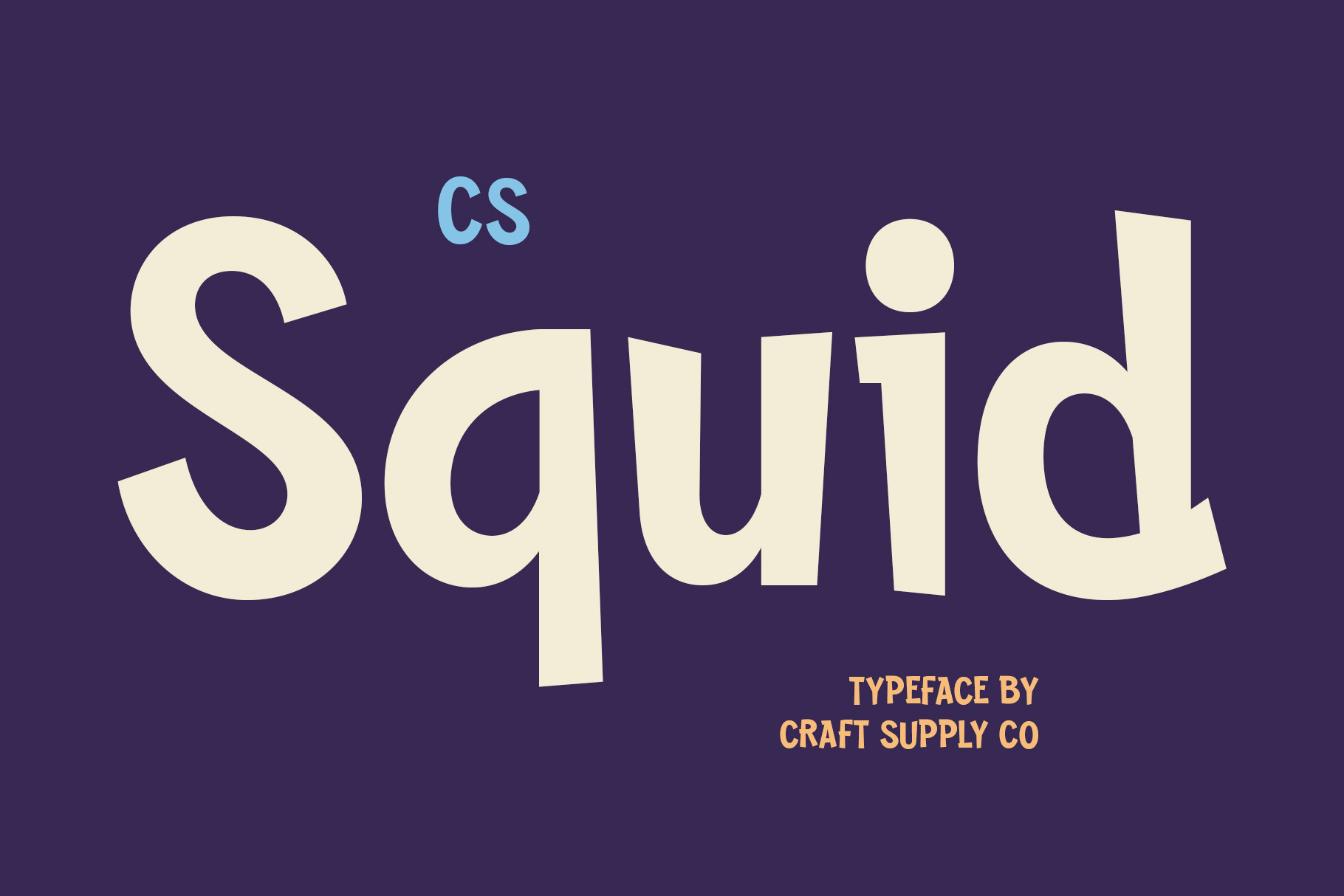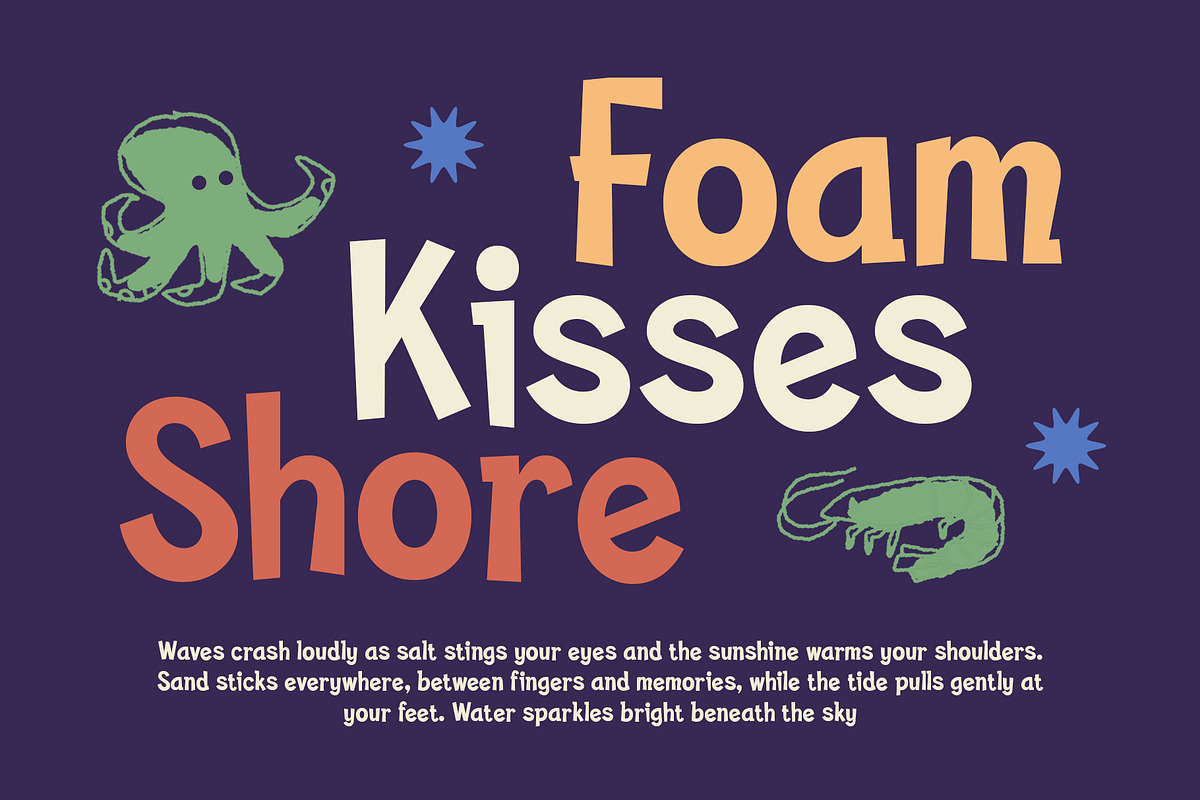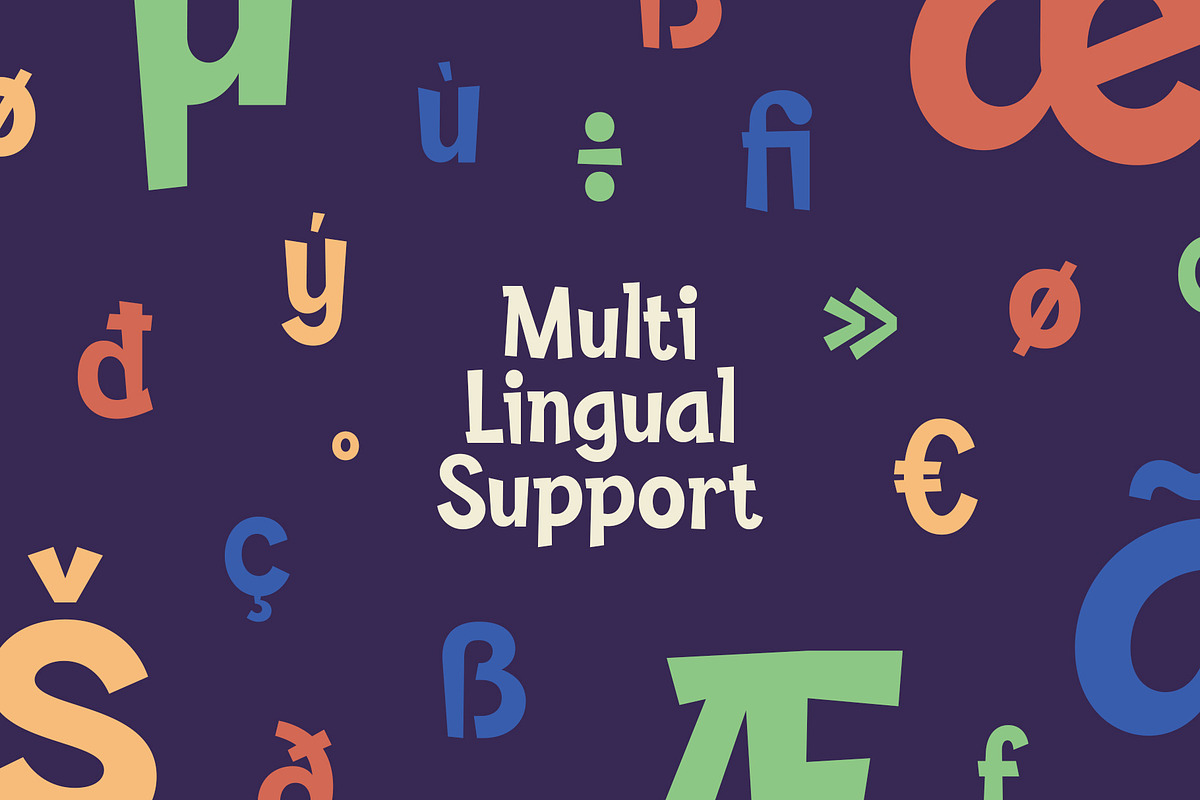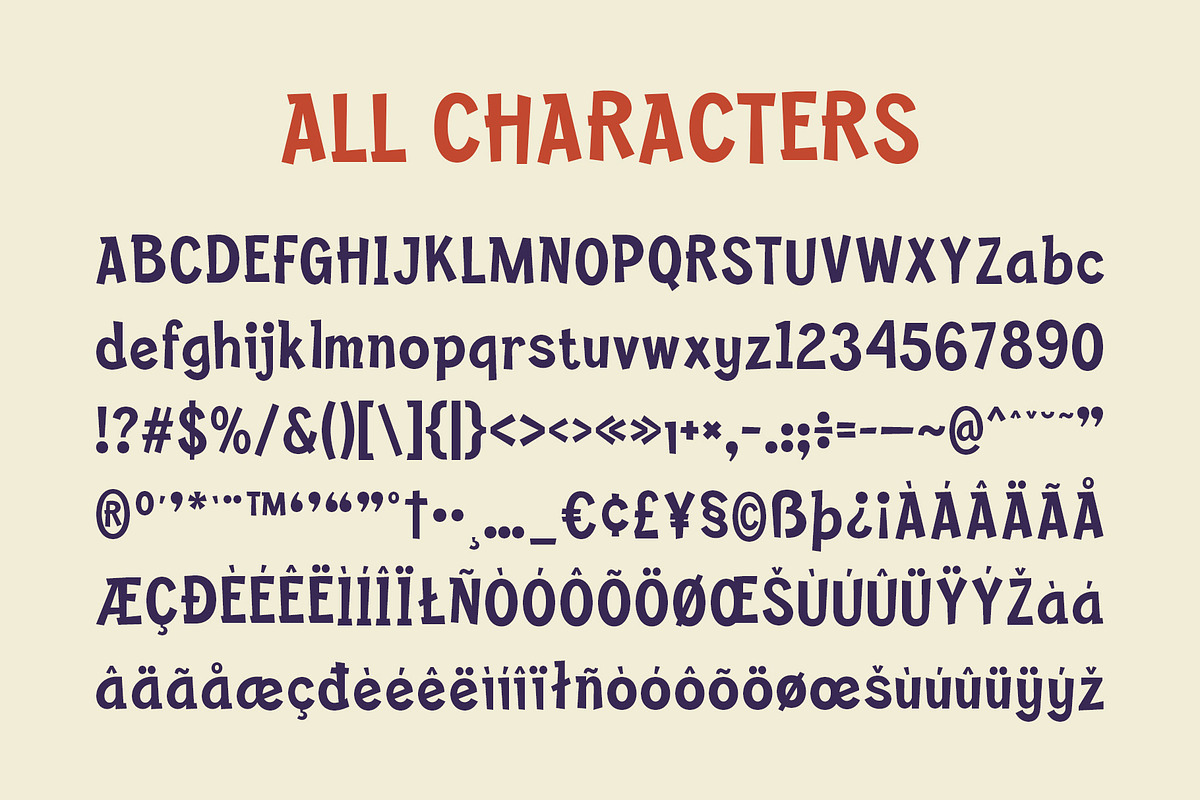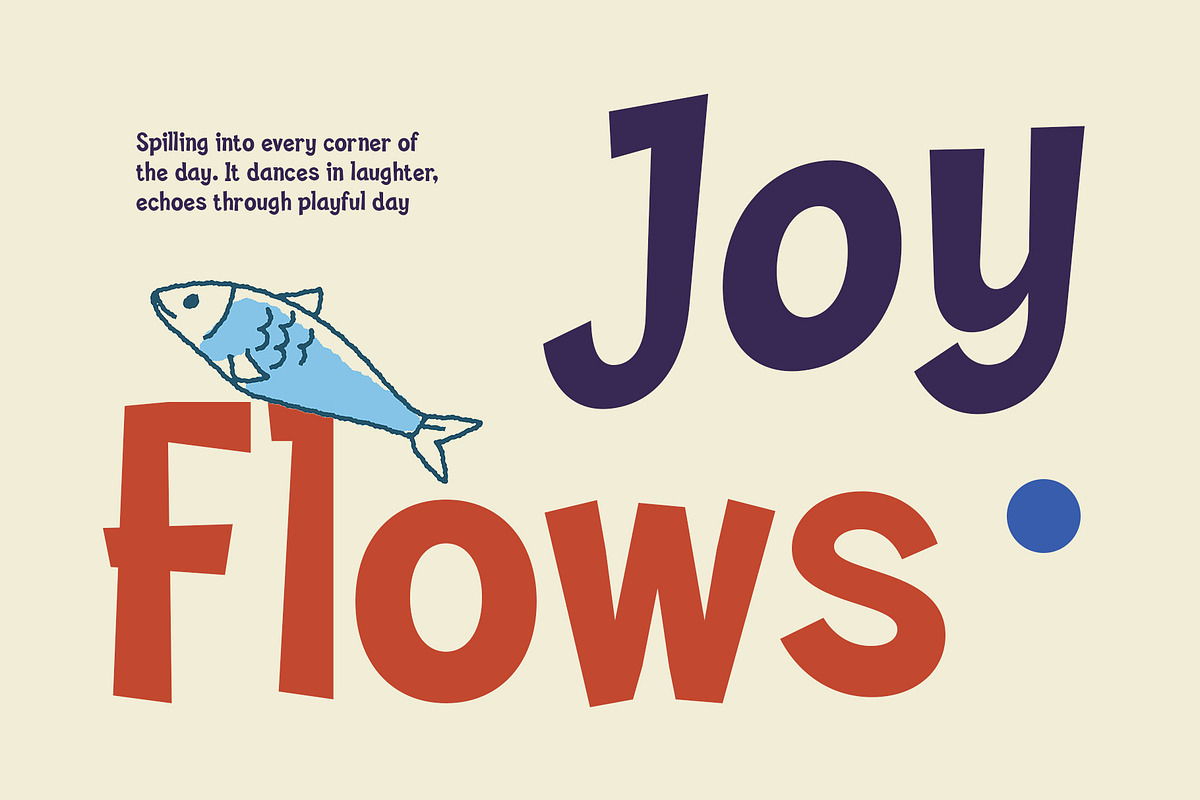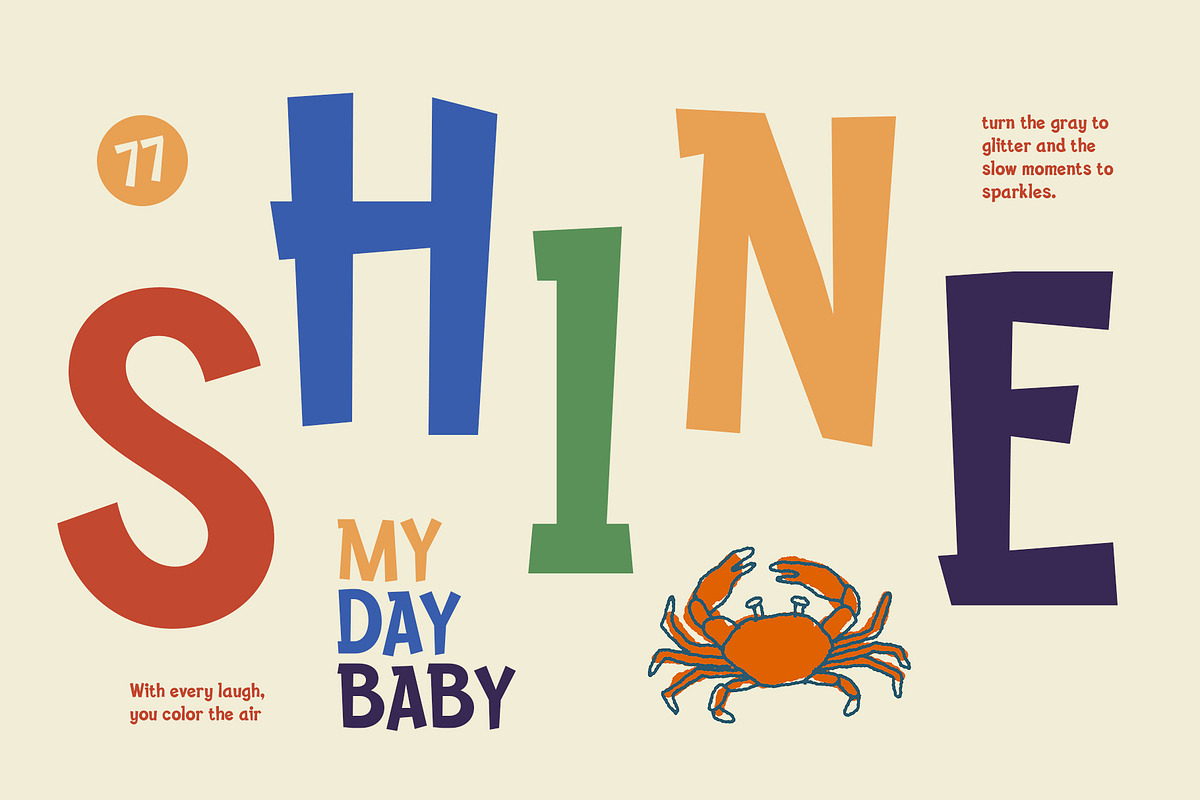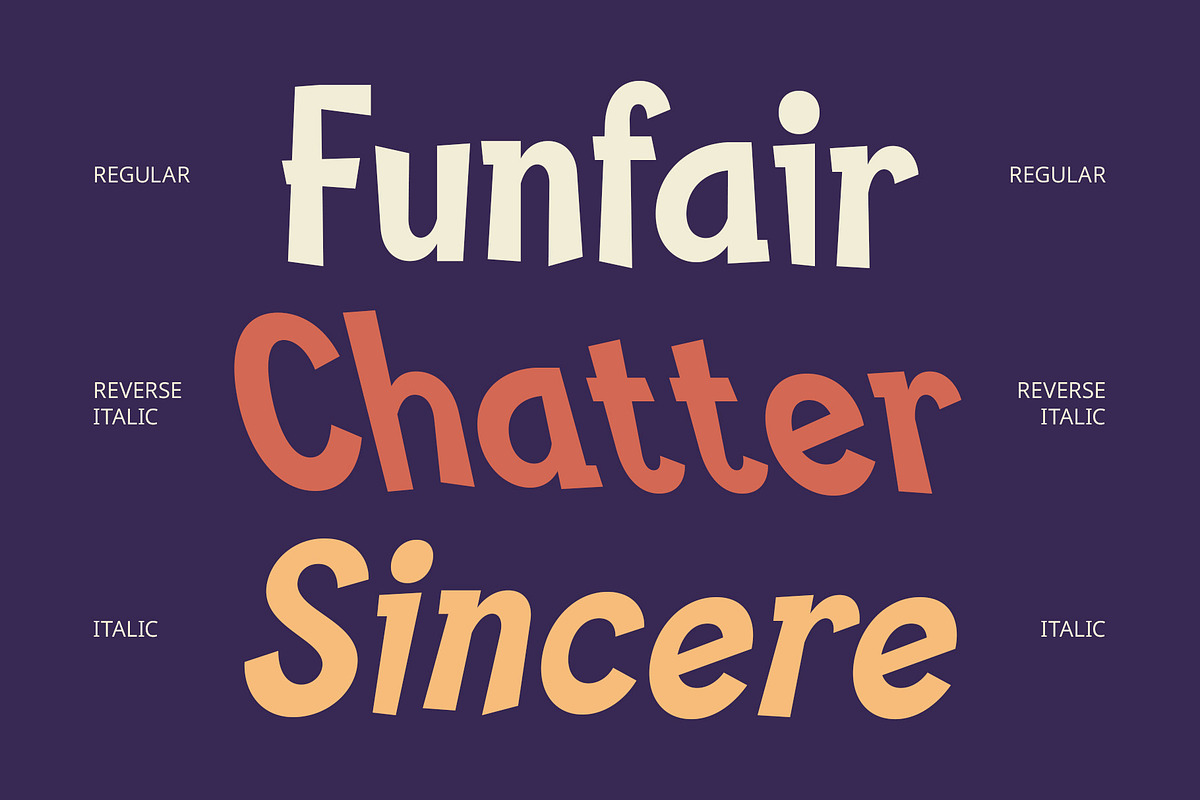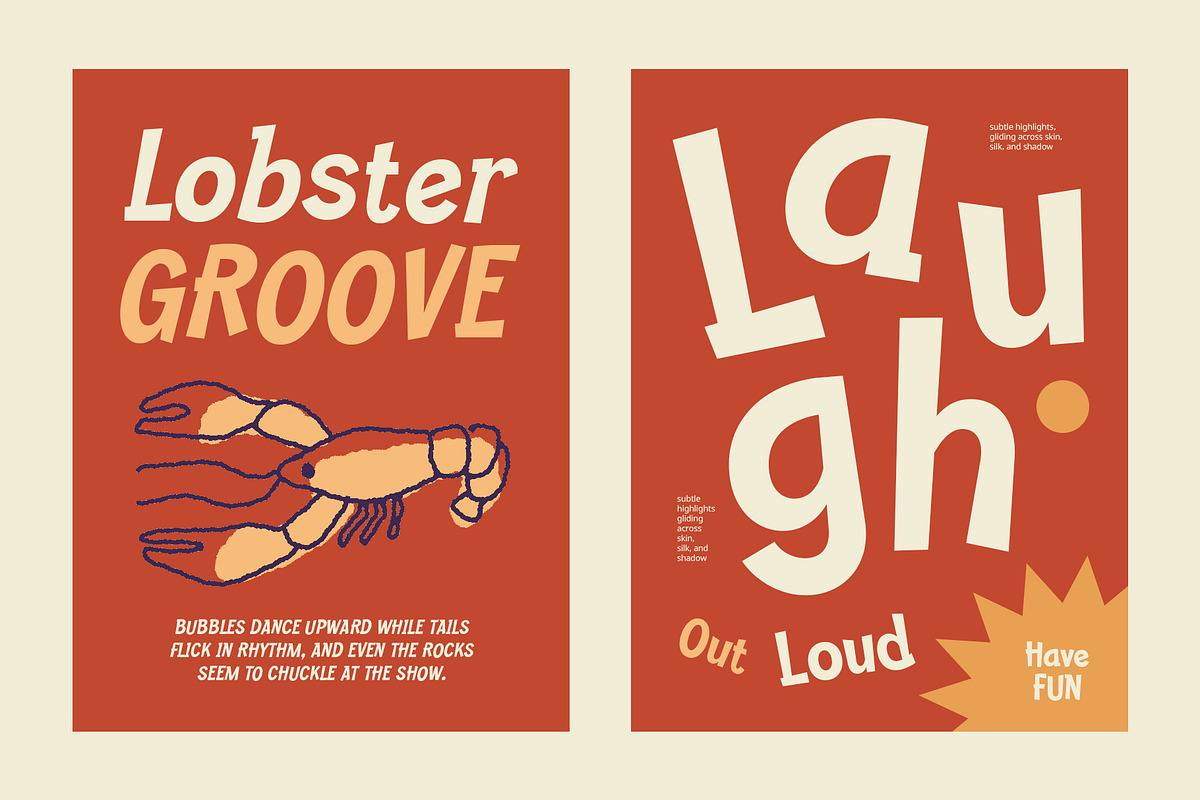
CS Squid – Cute Font
CS Squid – Cute Font: Bold and Playful with a Funky Vibe
Fun and Energetic Letterforms CS Squid – Cute Font is a modern display typeface that captures the essence of fun with its bold, playful letterforms. Its quirky, rounded shapes and lively design bring an energetic vibe to any project, making it the perfect choice for designs aimed at younger audiences.
Ideal for Children’s Designs With its cheerful personality, CS Squid – Cute Font is ideal for children’s products and playful designs. Its light-hearted and easygoing nature brings a sense of whimsy and charm, making it perfect for books, educational materials, toys, and more. Add an instant touch of cuteness to your project with this font that speaks to the fun-loving spirit of kids.
Vibrant and Full of Personality CS Squid – Cute Font’s funky vibe ensures it brings a lively and distinctive character to any design. Its bold style ensures visibility and impact, while its cute details add a unique personality that grabs attention. Whether it’s used for branding, packaging, or digital designs.
Versatile for Cheerful Projects Perfect for vibrant and cheerful projects, CS Squid – Cute Font is highly versatile and adaptable to a variety of design needs. Its dynamic design works well for everything from cartoons and party invitations to kids’ fashion and stationery. Whatever the project, CS Squid – Cute Font adds a playful spark that’s sure to delight.
- CS Squid Regular
- CS Squid Italic
- CS Squid Reverse Italic